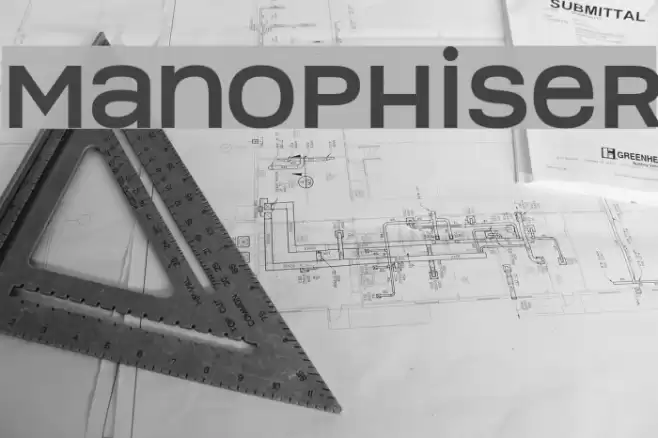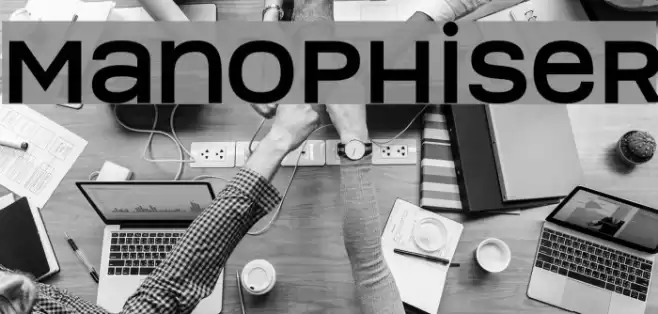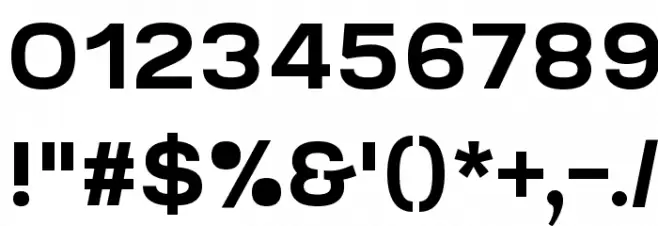
Manophiser Font
Manophiser Description
This font features a clean and modern sans-serif style with a strong geometric influence. The characters are bold and evenly weighted, providing a sense of stability and clarity. The uppercase and lowercase letters are well-proportioned, with a consistent stroke width that enhances readability. The numerals are straightforward and align well with the overall design, making them suitable for various applications. The special characters are distinct and maintain the font's cohesive look, ensuring versatility across different contexts.
A modern, bold sans-serif font with geometric influences and consistent stroke width from Uncategorized fonts.
- Proposed Projects: Ideal for branding, advertising, digital interfaces, and editorial design where clarity and modernity are key.
- Use Case: Headlines, Logos, Digital Interfaces